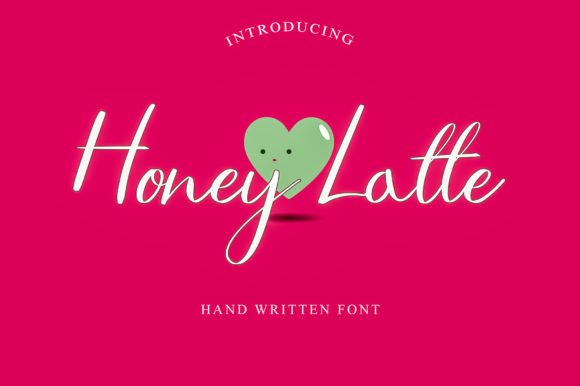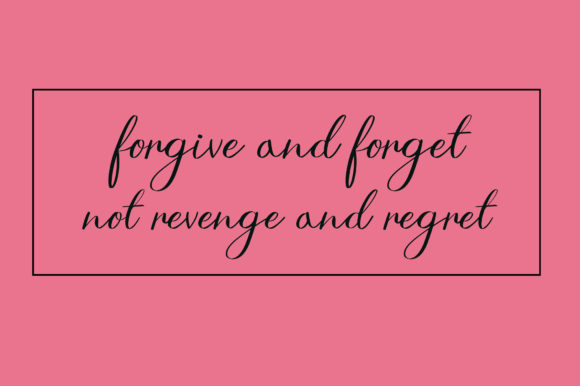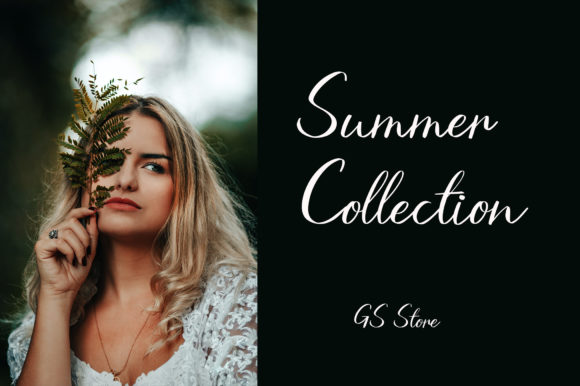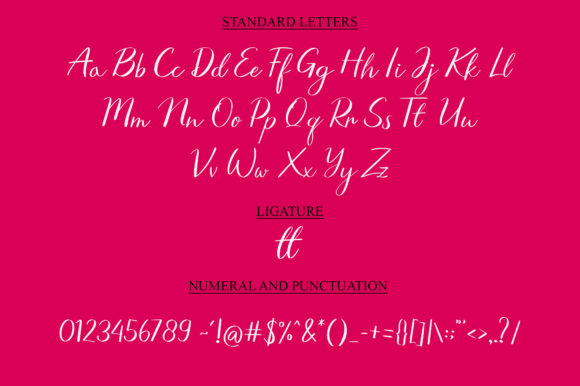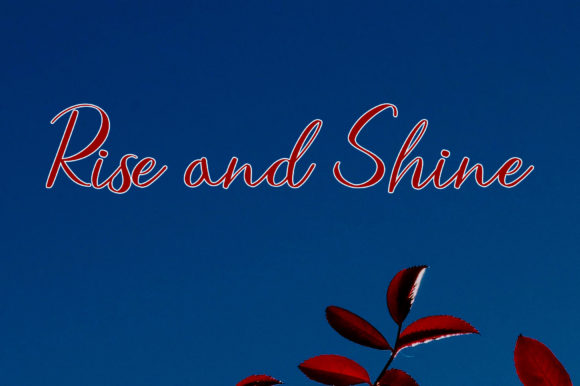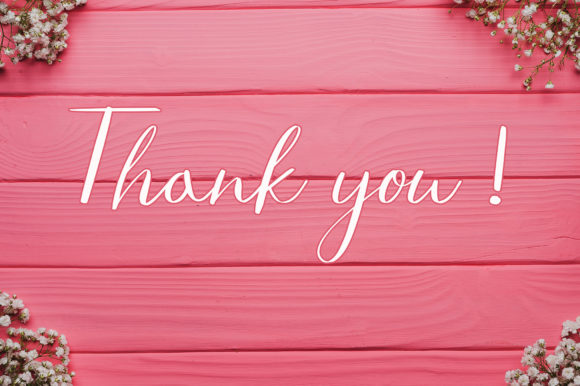
A Dash of Sweetness in Your Designs
Have you ever sat down at your desk, stared blankly at your computer screen, and wished for that perfect font to elevate your design? The struggle is real, but don’t worry, we’ve got you covered. For designers seeking a touch of elegance and sophistication in their work, the perfect solution has finally arrived. Enter the delightful Honey Latte Font, a beautifully crafted script font designed to add a dash of sweetness to your designs.
With its delicate and refined features, the Honey Latte Font is perfect for those who crave a refreshing look in their designs. Whether you’re a seasoned pro or a budding designer, this font is sure to become a valuable addition to your toolkit. Its versatility and sophistication make it an ideal choice for a wide range of projects, from weddings to fashion brands, and everything in between.
Honey Latte Font Key Features
- Font Style: Honey Latte is a script font with a warm and elegant feel, suitable for various design projects.
- Unique Characteristics: Features a unique blend of handwritten and cursive elements, creating a distinctive and eye-catching visual effect.
Honey Latte Font Review
I recently had the chance to work with the Honey Latte Font, and I have to say, it’s a sweet addition to any design project. ✨
- Warm and inviting feel: The Honey Latte Font has a cozy, earthy tone that immediately puts the user at ease.
- Highly legible: The font is incredibly easy to read, even at small font sizes.
- Perfect for food and beverage brands: The font’s name says it all – it’s a great choice for coffee shops, bakeries, and other food-related businesses.
However, like any font, it’s not without its limitations. ⚠️
- Limited character set: The font only comes in a few weights and styles, which may limit its versatility in certain projects.
- May not be suitable for formal or corporate designs: The Honey Latte Font is best suited for casual, creative projects.
Overall, I’d say the Honey Latte Font is a great choice for designers looking for a warm, inviting font for their next project. While it may not be the most versatile font out there, its unique character and high legibility make it a solid addition to any design toolkit.
Tip: Use Honey Latte Font for headings and titles to add a touch of elegance to your designs.
Tip: Use Honey Latte Font for creating custom typography and adding a unique touch to your designs.
Tip: Use Honey Latte Font for creating presentations and documents that require a touch of sophistication.
Honey Latte Font is ideal for:
- Coffee shop and cafe branding
- Food and beverage packaging
- Magazine and newspaper headlines